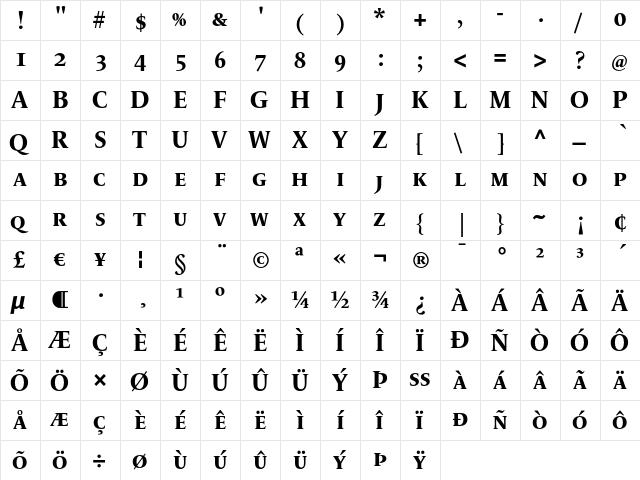
LeMondeLivre Bold Small Caps
LeMondeLivre takes a measured approach to typography — its balanced proportions and neutral character make it a reliable workhorse for both digital and print work. The heavy weight commands attention and anchors typographic hierarchies.